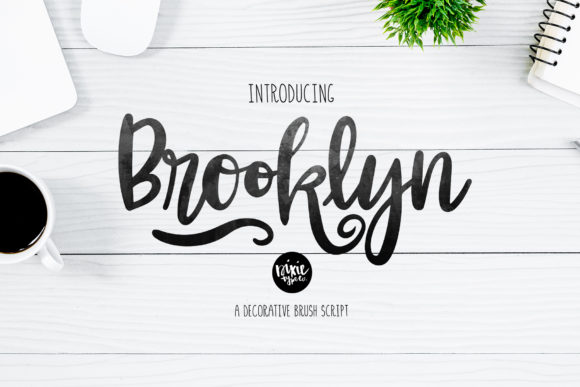
The Brooklyn Font: A Bold and Beautiful Handwritten Marvel
I’ll never forget the time I was working on a branding project for a trendy boutique hotel in Brooklyn. My client wanted a font that embodied the borough’s vibrant, eclectic spirit, but I was struggling to find the perfect fit. That’s when I stumbled upon the Brooklyn font – a stunning, bold, and round lettered handwritten font that instantly captured the essence of the city. In this article, I’ll share my experience with the Brooklyn font, its features, and how to make the most of it in your designs.
An Honest Review of Brooklyn Font
- ✨ Unique and distinctive style: Brooklyn font’s flowing and rounded letters make it stand out from more traditional fonts.
- ✅ Versatility: It works beautifully in both formal and informal designs, from luxury branding to playful crafts.
- 💫 Ease of use: The font is easy to read and pairs well with a variety of other fonts, making it a great addition to any design project.
While the Brooklyn font is incredibly versatile, there are a few things to keep in mind:
- ⚠️ Legibility at small sizes: Like many script fonts, Brooklyn can become a bit tricky to read at very small sizes. It’s best used at larger sizes or for headlines.
- 🤔 Limited use in body text: Due to its decorative nature, Brooklyn font might not be the best choice for lengthy body text. It’s perfect for titles, headings, or short paragraphs.
- Explore OpenType features, glyphs, and stylistic alternates to add more variety to your text. For example, you can use ligatures to connect letters or alternate characters for a more personalized look.
- Choose from features like ligatures, stylistic sets, and swashes to add more personality to your text.
The Backstory of Brooklyn Font
The Brooklyn font was inspired by the vibrant streets of Brooklyn, New York. Its designer aimed to capture the borough’s eclectic mix of old and new, blending traditional typography with modern flair. The result is a font that’s both timeless and trendy, perfect for designs that need a unique touch.
Q: Is Brooklyn font suitable for body text?
A: While Brooklyn font is beautiful, it’s best used for headings and titles due to its decorative nature. For body text, a more traditional font might be more readable.